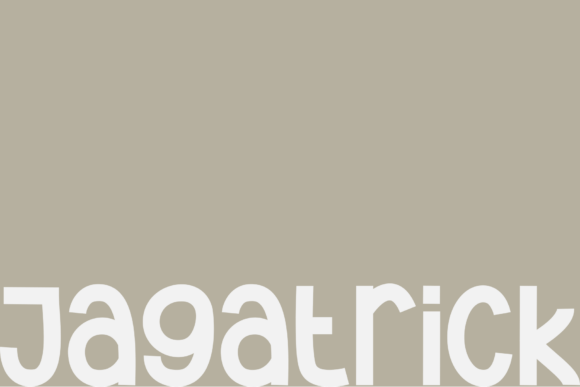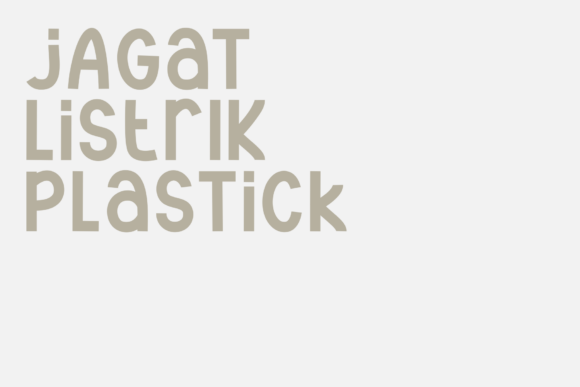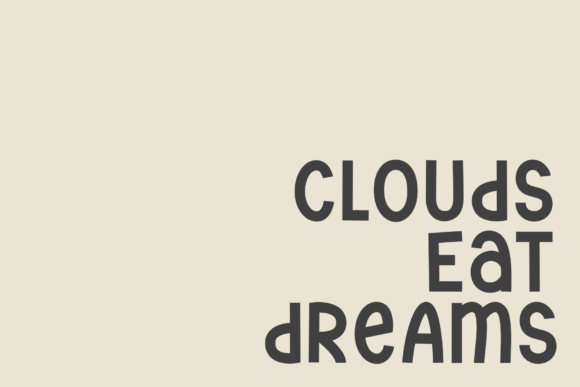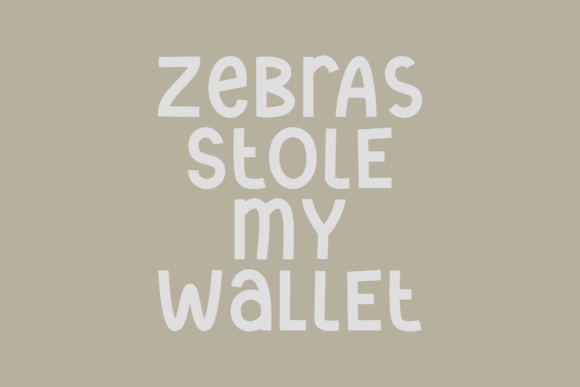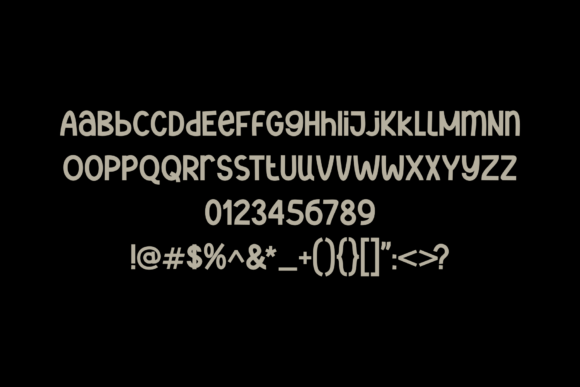
The Birth of a Bold New Era in Typography
Have you ever been stuck on a design project, staring at a blank screen, waiting for that spark of creativity to strike? It’s a familiar feeling for many designers, but what if that spark was sparked by a single font? For those in search of a bold new voice, the Jagatrick Font is here to shake up the status quo.
This dynamic display font is the perfect blend of geometric boldness and quirky character alternates, making it a versatile tool for designers looking to add a touch of rebellion to their work. With its condensed yet fluid style, the Jagatrick Font adds a futuristic edge to headlines, logos, and posters, making it an invaluable asset for any creative project.
Jagatrick Font Key Features
- Unique Characteristics: This font features a unique blend of modern and traditional elements, with intricate details and subtle flourishes that add to its aesthetic appeal.
- Font Width and Height: The font’s x-height is around 75% of its cap height, making it easy to read and maintain a consistent line spacing.
Jagatrick Font Review
After exploring the Jagatrick Font, I must say it has some amazing features that caught my attention. ✨ The font’s unique blend of modern and traditional elements is quite appealing. The designer has successfully combined clean lines, geometric shapes, and subtle nuances to create a visually striking effect. ✨ The font’s versatility is also a plus point, making it suitable for a wide range of applications, from corporate branding to digital interfaces.
However, I do have some reservations about the font’s limitations. ⚠️ One of the main concerns is the font’s limited character set. While it includes the basic Latin alphabet, it falls short in terms of additional characters, such as Cyrillic or Asian scripts. ⚠️ Additionally, the font’s OpenType features are somewhat limited, which may restrict its use in more complex typography scenarios.
Overall, I would rate the Jagatrick Font as a solid choice for designers looking for a unique, modern sans-serif font. However, its limitations may make it less suitable for projects requiring a broader character set or advanced typography features.
- What works well:
- Unique blend of modern and traditional elements
- Visually striking effect
- Versatility in various applications
- Limited character set (⚠️)
- Limited OpenType features (⚠️)
Tips for Getting the Most Out of Jagatrick Font
To get the most out of Jagatrick font, use it for:
Headings and titles: Jagatrick font is ideal for creating eye-catching headings and titles due to its unique and bold style.
Display text: Use Jagatrick font for display text to add a touch of elegance and sophistication to your designs.
Branding: Jagatrick font can be used as a logo font or for branding purposes due to its distinctive style.
Jagatrick font is commonly used in:
Magazine and newspaper designs
Brochures and flyers
Branding and logo designs